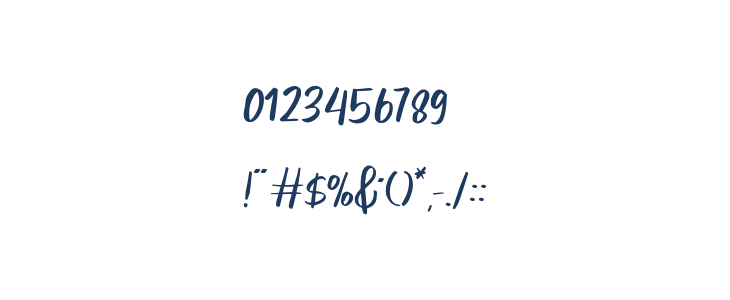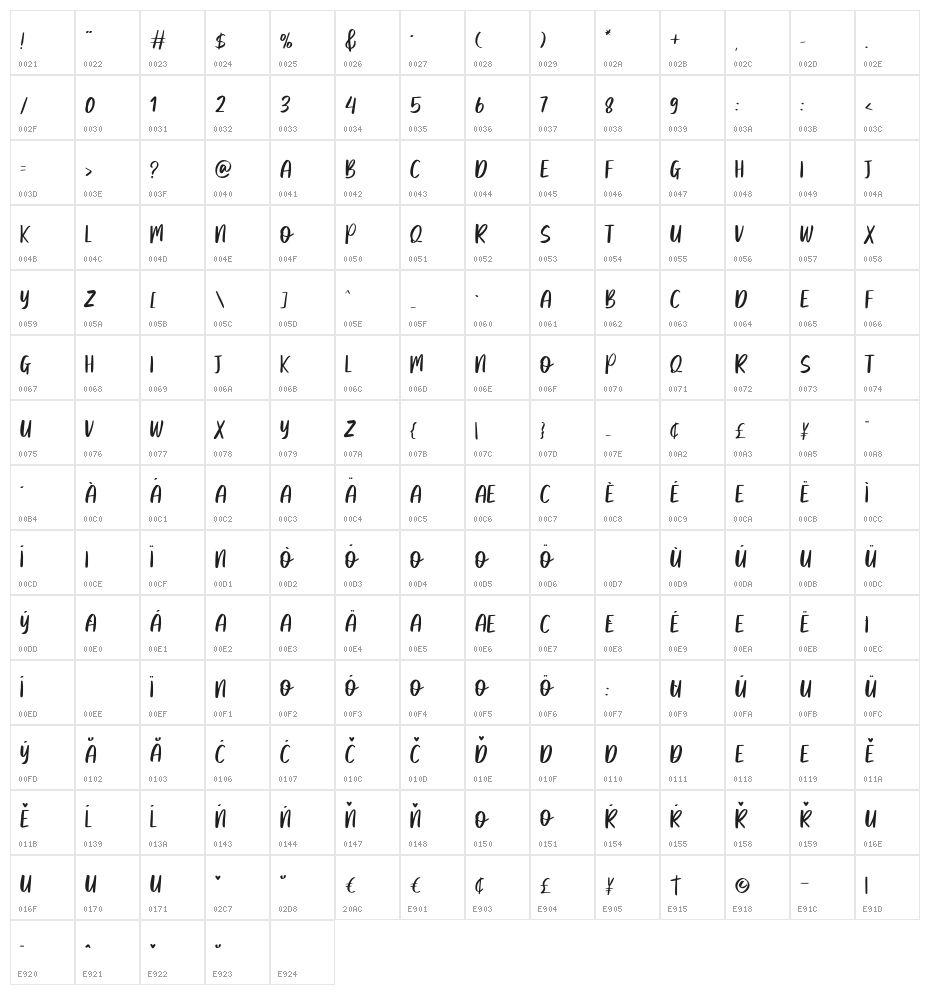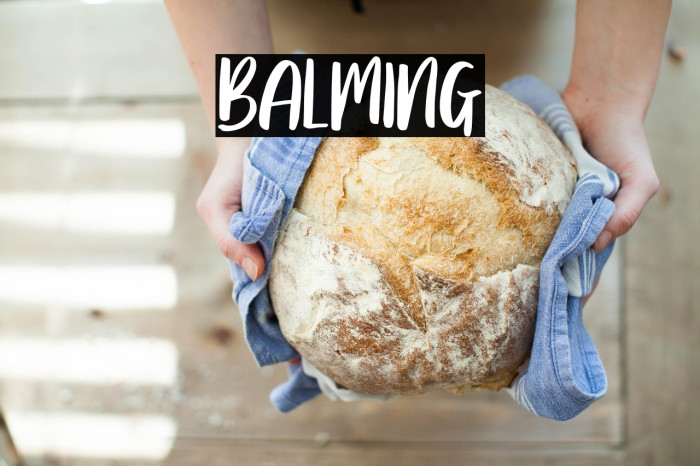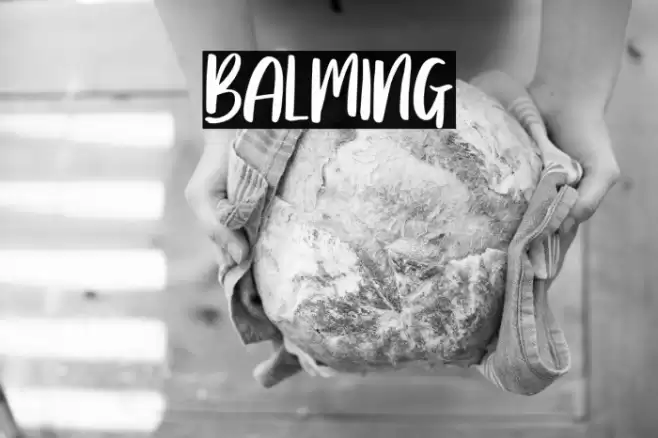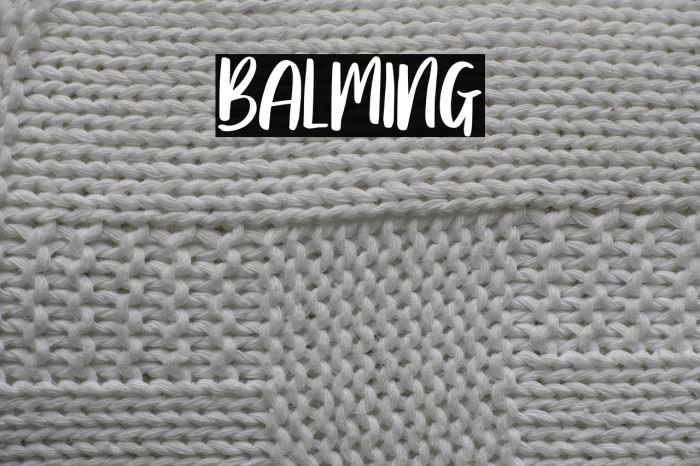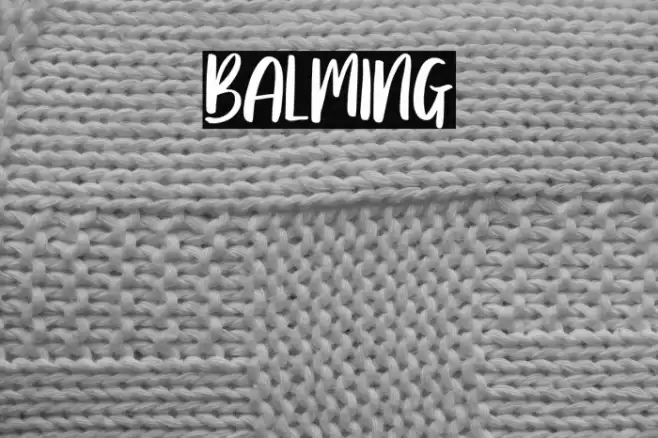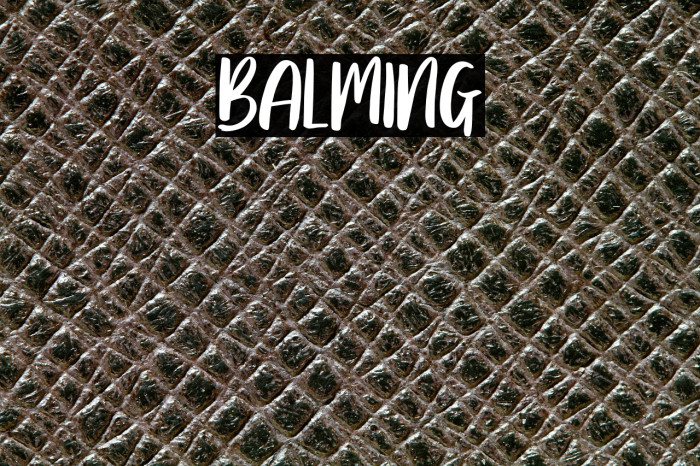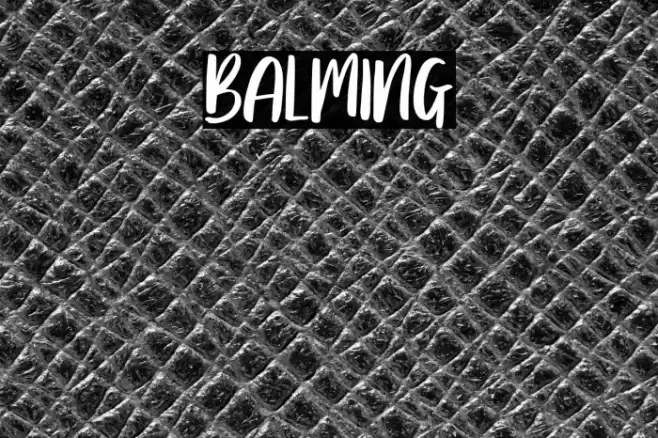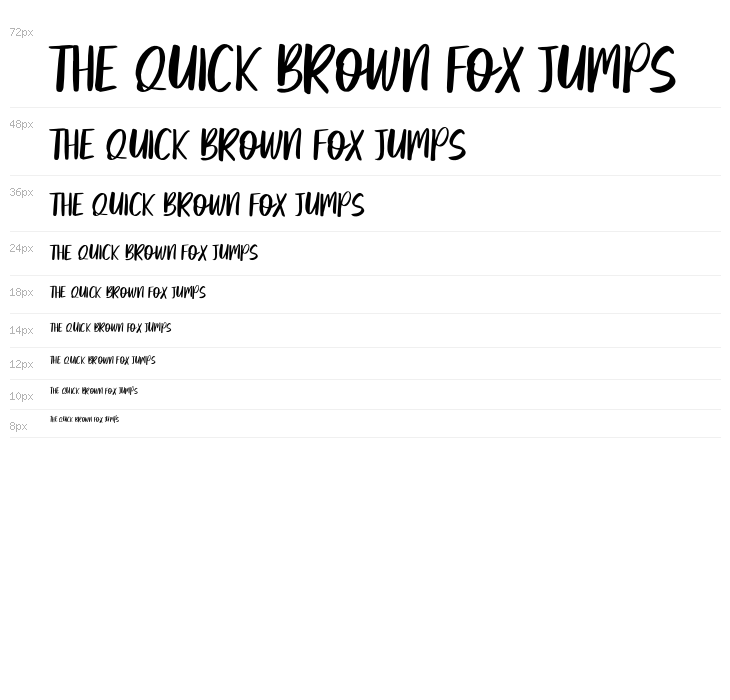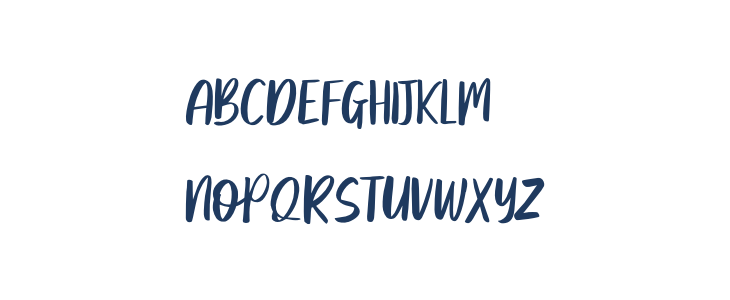
Balming Font
Balming Description
This font features a bold and expressive handwritten style, characterized by its fluid and dynamic strokes. The letters are slightly slanted, giving a sense of movement and energy. The uppercase and lowercase letters maintain a consistent style, with rounded edges and a playful appearance. The numbers and special characters complement the alphabet with similar boldness and flair. This font's design is both casual and artistic, making it suitable for creative and informal applications.
| Proposed Projects | Ideal for greeting cards, social media graphics, posters, and branding projects that require a personal and artistic touch. |